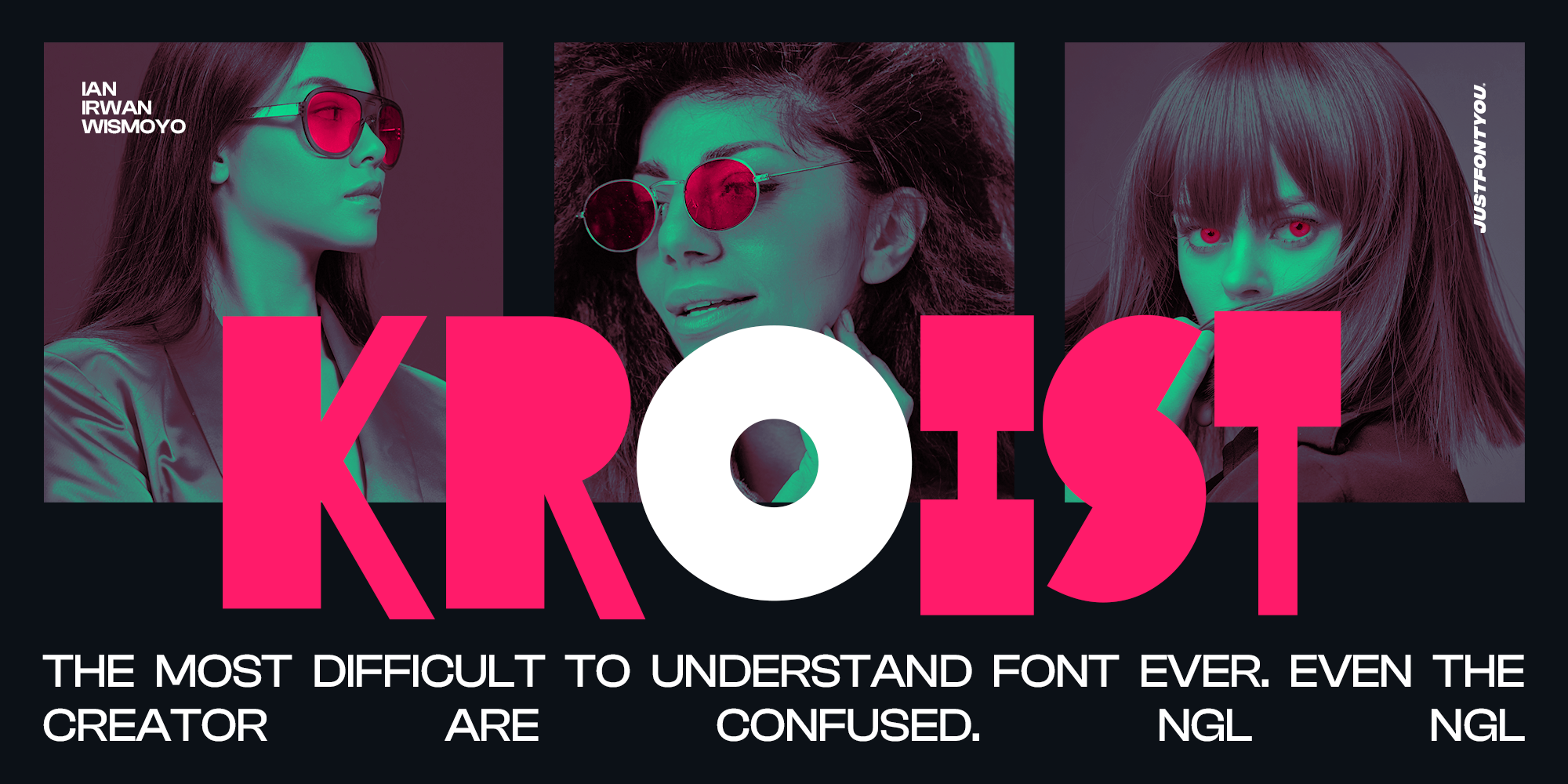
Kroist Font excels in modern branding, logo design, editorial layouts, website headers, corporate presentations, luxury packaging, contemporary posters, and sophisticated digital interfaces.
Kroist Font is exciting because it perfectly balances modern minimalism with distinctive character, creating a unique typographic voice that stands out in today's competitive design landscape. This font delivers contemporary elegance with exceptional versatility and professional appeal.
Kroist Font family includes light, regular, medium, bold weights, plus italic variations and extended character sets, providing comprehensive typographic solutions for diverse creative applications.
Elevate your design projects with Kroist Font Free Download. This sophisticated typeface represents the pinnacle of contemporary typography, featuring clean, geometric letterforms that embody modern design principles while maintaining distinctive personality. Perfect for designers seeking premium quality and versatile functionality, this font delivers exceptional performance across all media platforms.
The meticulously engineered characters showcase precise proportions and optical refinements that ensure superior readability at any size. Each letter demonstrates careful attention to detail while contributing to an overall sense of harmony and professional sophistication that enhances brand credibility.
Whether you're creating corporate identities, editorial designs, or digital experiences, Kroist Font provides the contemporary edge your projects require. This versatile typeface seamlessly adapts to various design contexts while maintaining its unique character, making it an essential tool for modern designers who demand both aesthetic excellence and practical functionality in their typographic choices.